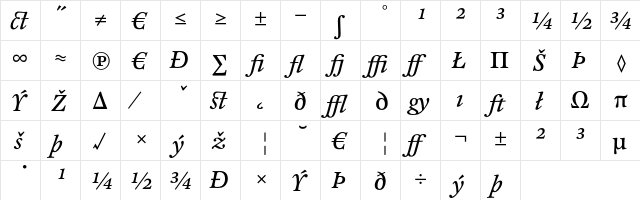
CliffordSix ItalicExpert Font Preview
CliffordSix ItalicExpert
Design Context for CliffordSix Typeface
CliffordSix takes a measured approach to typography — its balanced proportions and neutral character make it a reliable workhorse for both digital and print work. The slanted form adds forward momentum and visual energy.
Pro Tip: Use CliffordSix for emphasis, pull quotes, and subheadings where its slanted energy can add rhythm to the layout.